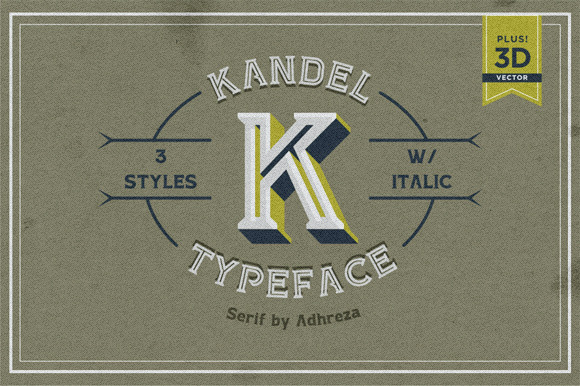
Kandel Typeface
Kandel Typeface is a modern serif-bold font for display in a bigger size. The typeface inspired by my brother's characteristics. I decided to name it 'Kandel' which in Sundanese it means bold and thick. The design prefers to use in insignia style, so I presented the different styles including inline, bevel and 3D. Especially for 3D, it's available on Illustrator file so you can use it perfectly straight.